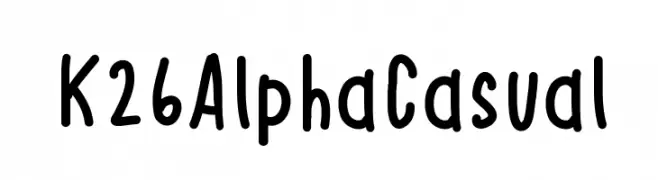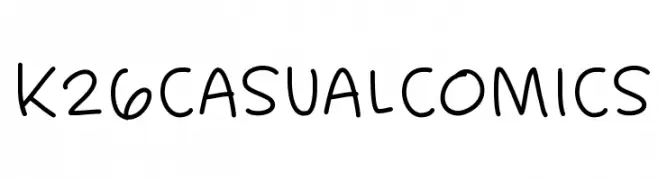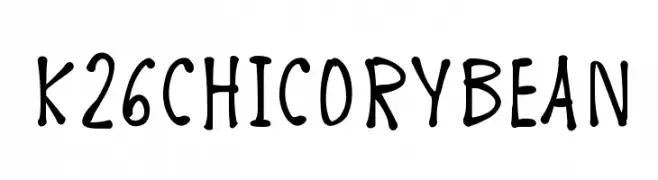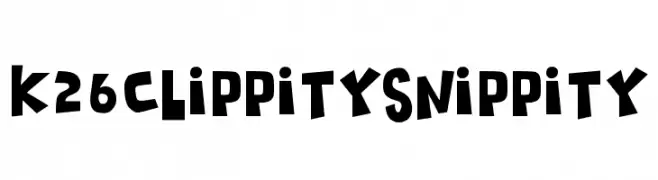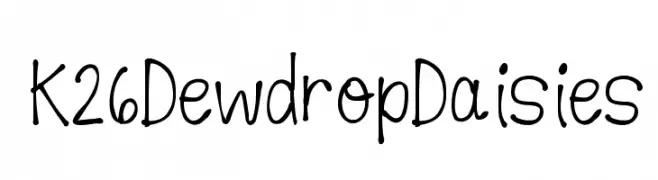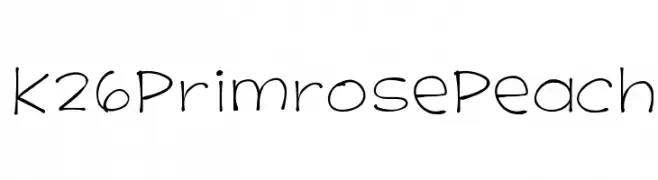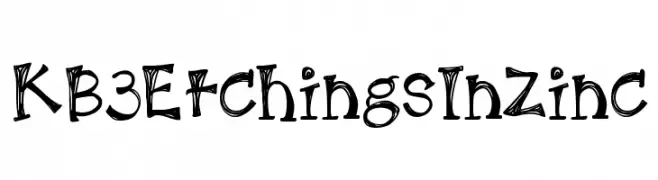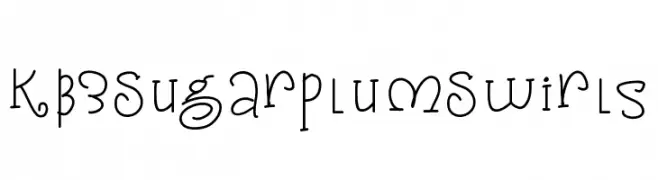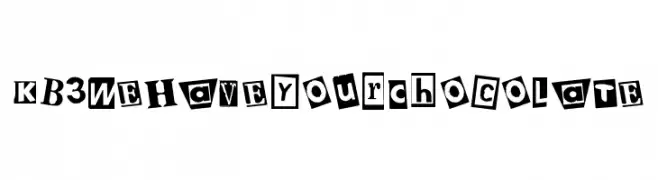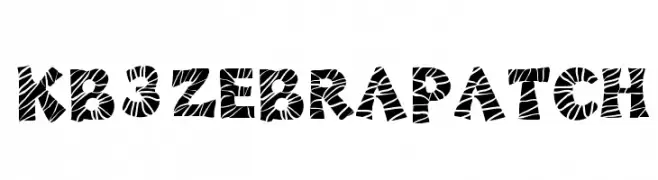
K26AlphaCasual Font
Font by KB3Teach
A playful, hand-drawn font with rounded, slightly irregular letterforms.
KB3BusRoute123 Font
Font by K26 Fonts
A bold, playful font with a dotted pattern and rounded characters.
K26ChicoryBean Font
Font by KB3Teach
A playful, handwritten font with a casual and friendly style.
K26ToyBlocks123 Font
Font by K26 Fonts
A playful, 3D block-style font perfect for children's designs.
K26DewdropDaisies Font
Font by KB3Teach
A playful, handwritten font with tall, narrow letters and rounded edges.
K26ScribbleScrawl Font
Font by K26 Fonts
A playful, handwritten font with a casual, scribbled style.
K26Swashbuckle Font
Font by K26 Fonts
A playful, bold, hand-drawn font with thick, rounded strokes.
K26SpeechBubble Font
Font by K26 Fonts
A playful, handwritten font with rounded edges and a casual style.
K26CasualComics Font
Font by KB3Teach
A playful, handwritten-style font with a casual and friendly appearance.
K26SidewalkChalk Font
Font by K26 Fonts
A playful, hand-drawn chalk-style font with bold, irregular letterforms.
K26LavendulaGray Font
Font by K26 Fonts
A playful, handwritten font with tall, narrow letters and slight stroke variations.
KB3EtchingsInZinc Font
Font by KB3Teach
A playful, hand-drawn font with a whimsical and artistic style.
KB3SugarplumSwirls Font
Font by KB3Teach
A whimsical, playful font with swirls and curls, perfect for creative projects.
K26ClippitySnippity Font
Font by K26 Fonts
A playful, bold font with quirky, uneven strokes and a whimsical style.
K26PrimrosePeach Font
Font by KB3Teach
A playful, handwritten font with a casual and friendly style.
K26Rambunctious Font
Font by K26 Fonts
A playful, bold font with rounded, cartoon-like characters.
K26BonVoyage Font
Font by K26 Fonts
A playful, handwritten font with a casual and friendly style.
KB3SpiderPatch Font
Font by KB3Teach
A playful, hand-drawn font with intricate spider web-like patterns.
K26LilacMist Font
Font by KB3Teach